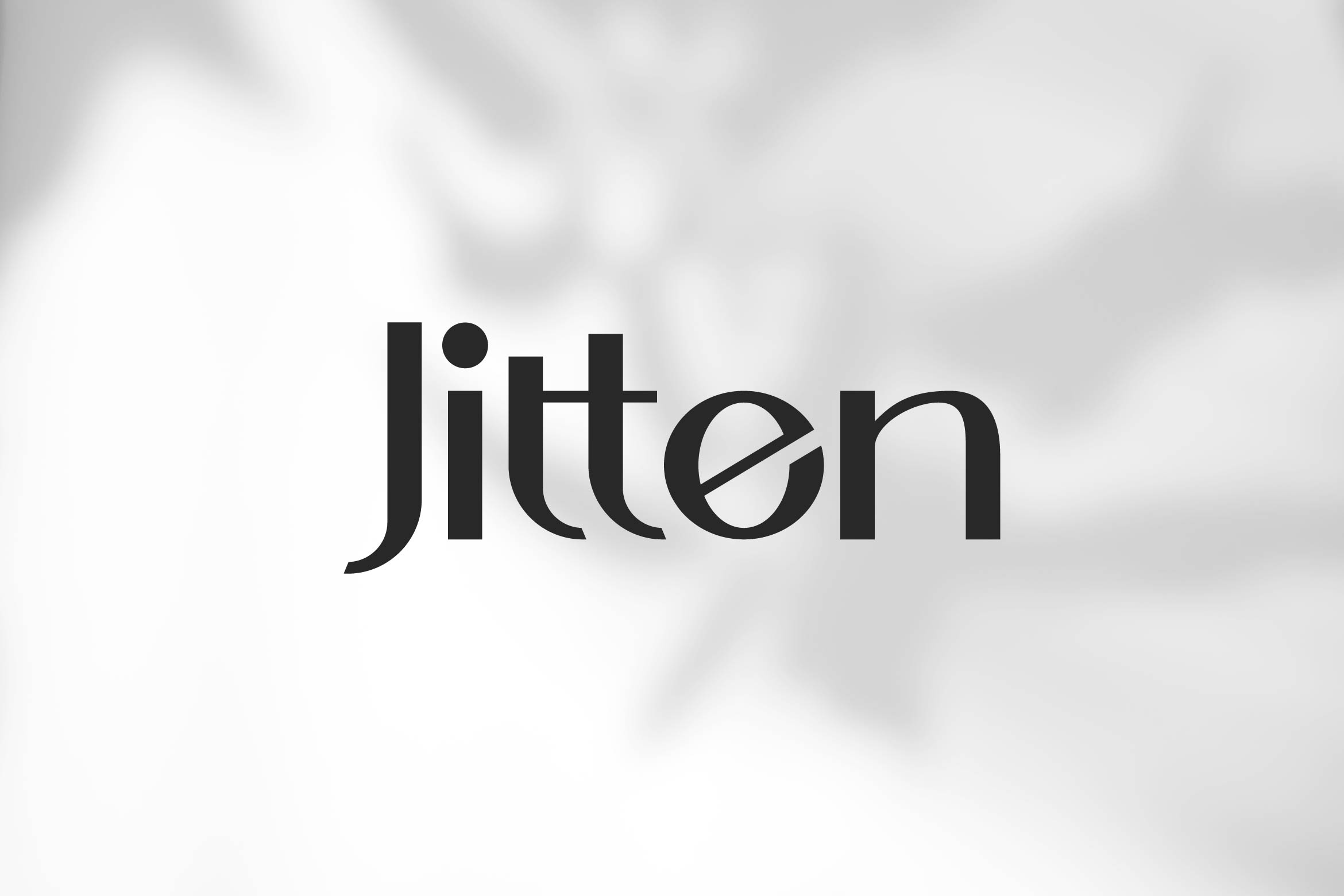
- Jitten Premium Sans Font
Jitten is a clean and modern sans serif font designed with a gentle, feminine touch. Its smooth curves, airy spacing, and subtle elegance make it the perfect choice for lifestyle branding, fashion lookbooks, beauty packaging, social media templates, and wedding-related designs.
Balancing minimalism and warmth, Jitten includes uppercase and lowercase letters, multilingual support, and carefully crafted ligatures and stylistic alternates that enhance its graceful personality. Each character flows with clarity and softness, giving your typography a refined, stylish voice without overpowering the message.
Whether you’re building a high-end brand or designing soft, romantic visuals, Jitten adds sophistication and approachability to your work. Let your words feel light, elegant, and effortlessly beautiful — with Jitten, the minimalist sans serif that speaks with grace and intention.